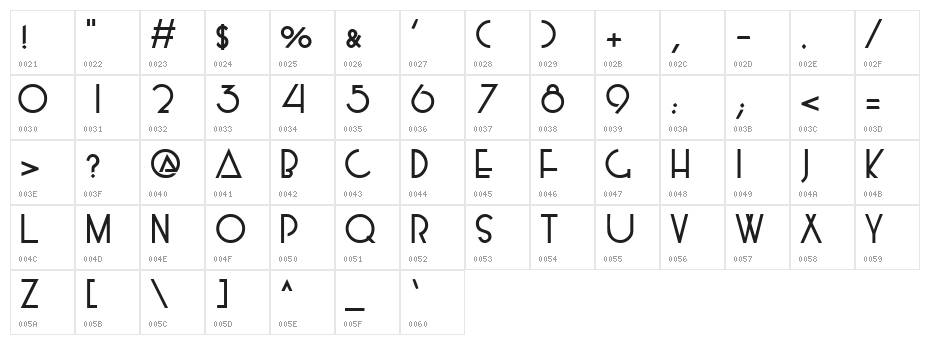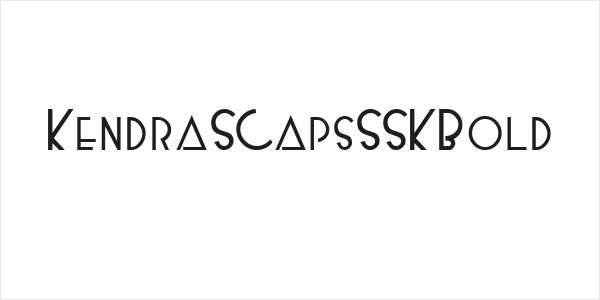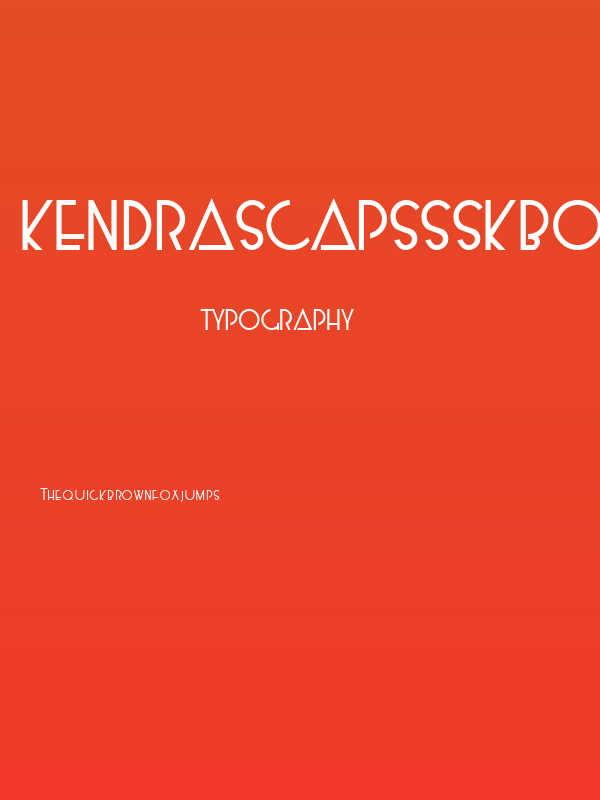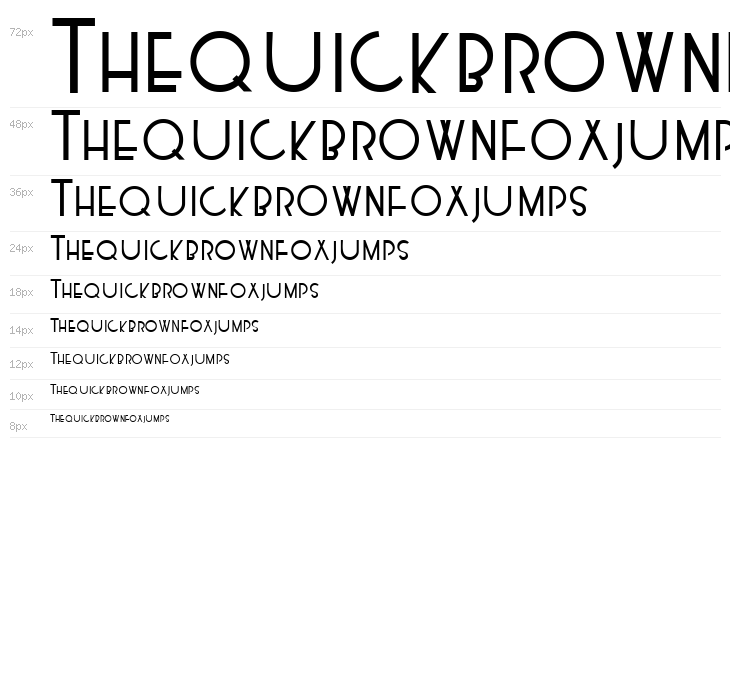
KendraSCapsSSK Bold Font
KendraSCapsSSK Bold Description
This font exhibits a bold and geometric style, characterized by sharp angles and clean lines. The uppercase letters are distinct with a modern flair, featuring unique cuts and strokes that add a sense of dynamism. The numbers maintain the geometric theme, offering a consistent visual flow. Special characters are designed with the same attention to detail, ensuring they complement the overall aesthetic. This font is ideal for creating a striking visual impact, suitable for both digital and print media.